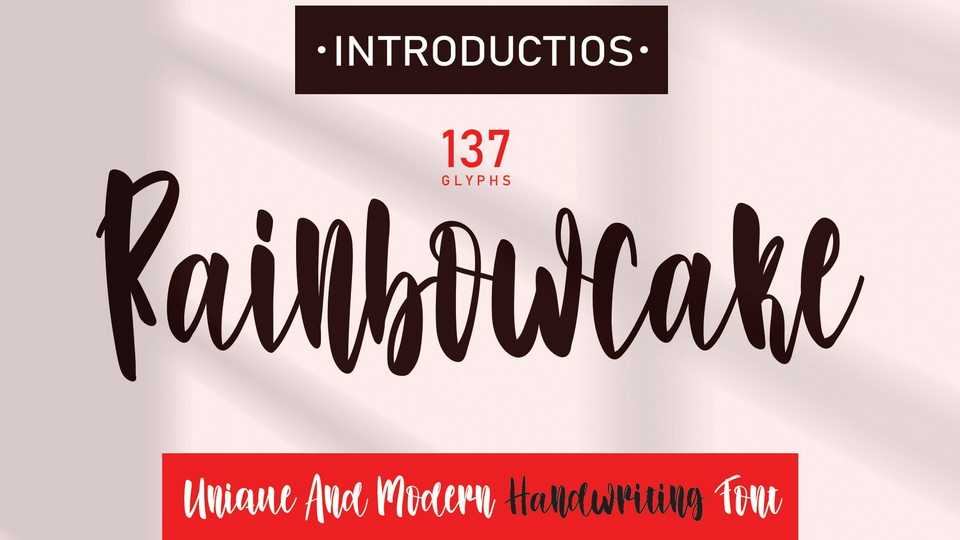
Download Rainbowcake font, a casual handcrafted typeface with creative brush strokes. Rainbowcake font perfect for wall displays, social media post, product packaging, labels and any project that requires taste handwriting.